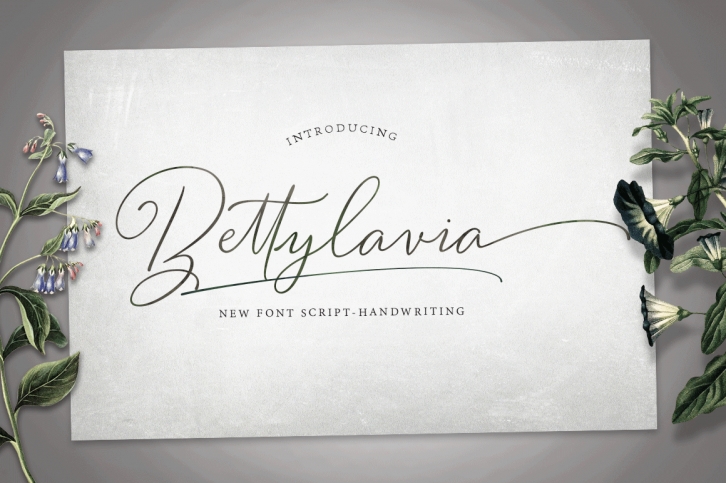
Bettylavia is a gorgeous font that was realeased on October 30, 2017. The font can be used in many style contexts and design environments. Perfect for invitations, magazines, websites, logos, and more! It was designed by GRAPHICPRESS and the file size is 7.11 MB. Thanks for checking out this font!